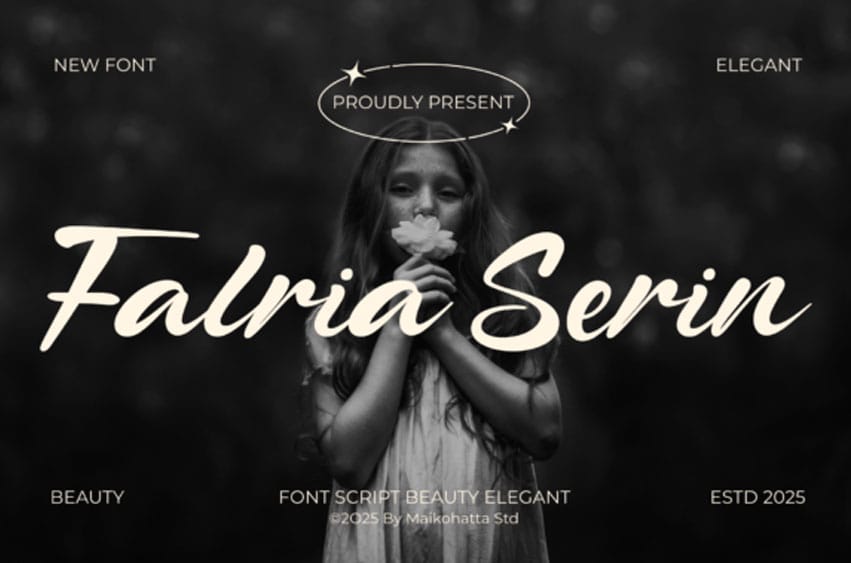
Falria Serin Font
Falria Serin Font Timeless Elegance in Every Stroke. Discover the perfect harmony of sophistication and artistic flair with Falria Serin, an elegant script beauty font designed to elevate your creative vision. This typeface combines the graceful flow of traditional calligraphy with a modern, bold aesthetic, making it an essential tool for designers seeking a “Beauty Elegant” touch. Created by Maikohatta Std, Falria Serin features smooth, expressive curves and a confident weight that ensures your message is both seen and felt.
Elegant Script Beauty: Specifically crafted for projects that require a high-end, polished look.
Versatile Application: Ideal for luxury branding, editorial headlines, and sophisticated social media layouts.
Bold Yet Graceful: Features thick, fluid strokes that provide excellent legibility while maintaining a delicate, handcrafted feel.
Contemporary Classic: Perfectly suited for wedding invitations, premium packaging, and personal branding that demands a timeless appeal.
Whether you are designing a high-fashion magazine or a boutique logo, Falria Serin offers the premium aesthetic and artistic depth needed to make your work truly unforgettable.